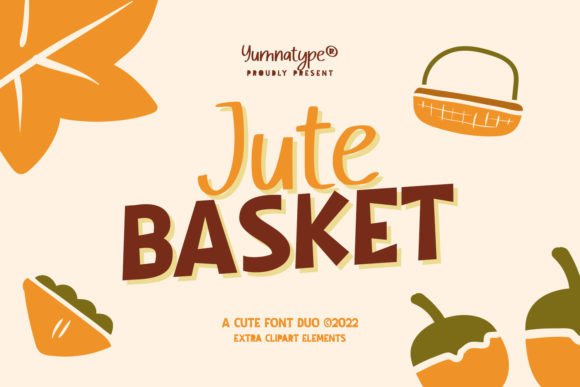
Embrace the beauty of typography with Jute Basket, a display font that exudes grace and elegance. Its sleek lines and flowing curves intertwine to create a masterpiece that radiates sophistication. Each character is a testament to the power of visual aesthetics, capturing the essence of contemporary design.
Transport your creative visions into a realm of unparalleled artistry with Jute Basket. Its PUA encoding unlocks a treasure trove of stunning glyphs and ligatures, empowering you to weave intricate designs with effortless ease. Elevate your projects to new heights of visual allure and leave an unforgettable impression on your audience.
With Jute Basket as your creative companion, you'll discover a world of possibilities. Craft logos that exude timeless charm, design wedding invitations that radiate romance, or create social media posts that captivate your followers. Let Jute Basket's versatile nature guide you as you explore boundless creative horizons.
Immerse yourself in the beauty of Jute Basket, a font that resonates with artistry and innovation. Its meticulous craftsmanship and distinctive style will transform your creative endeavors into masterpieces that captivate and inspire. Embrace the allure of typography and let Jute Basket elevate your designs to extraordinary heights.